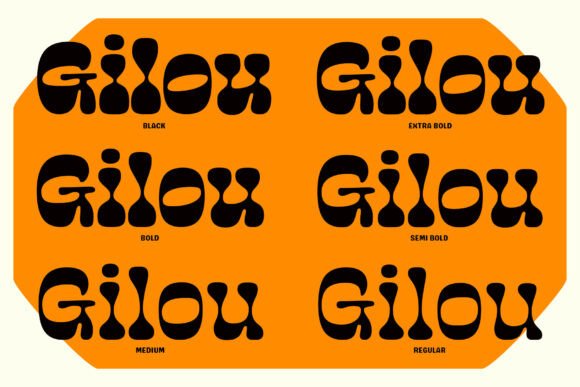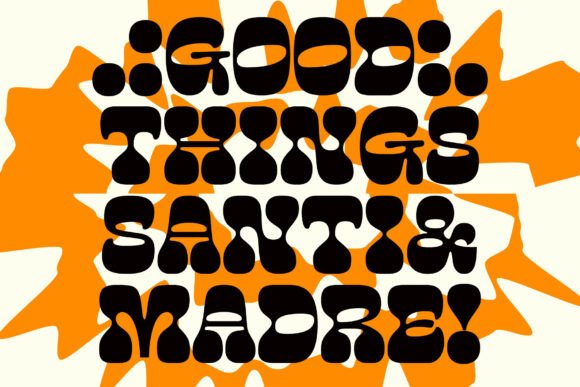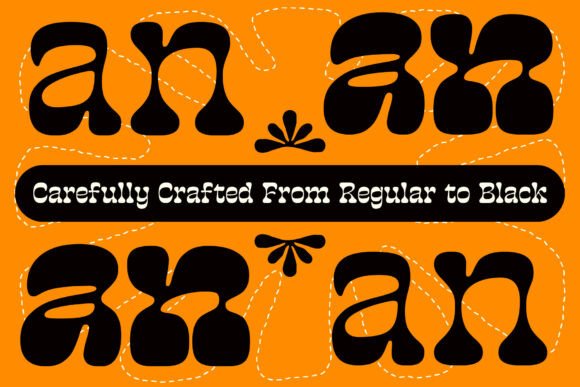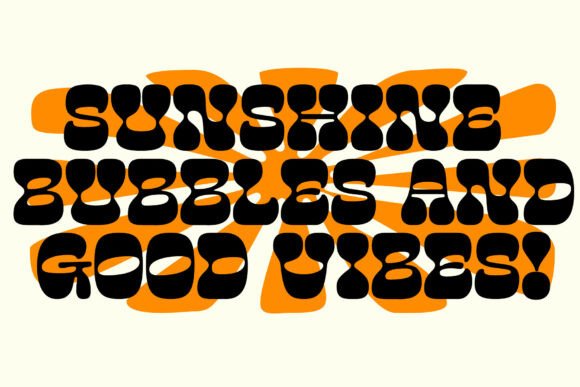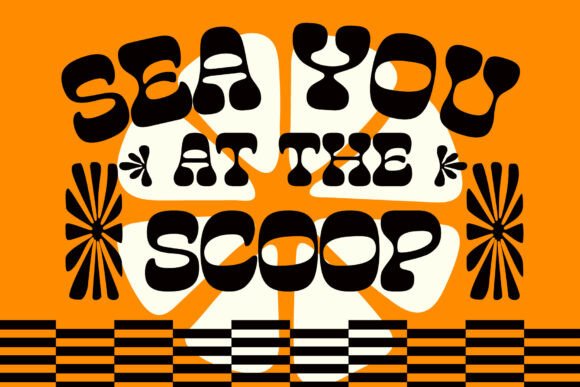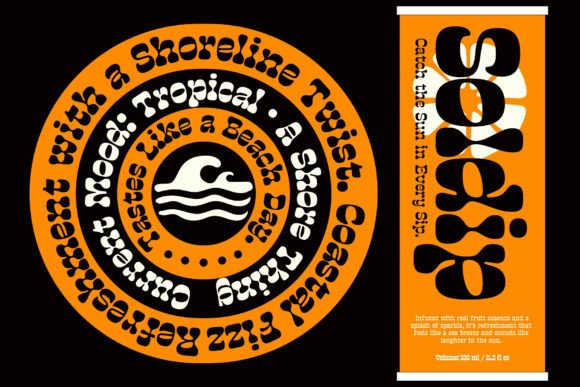
Introduction to Gilou Font
Soaked in sunshine and splashed with retro charm, Gilou brings bold personality and bubbly vibes to every design.
Inspired by ‘70s psychedelia and beachy daydreams, this font is all about wavy forms, chunky curves, and a whole lotta soul It’s a full-on sunshine trip — perfect for ice cream brands, fizzy drinks, music posters, and anything that craves a touch of trippy nostalgia.
Key Features of Gilou Font